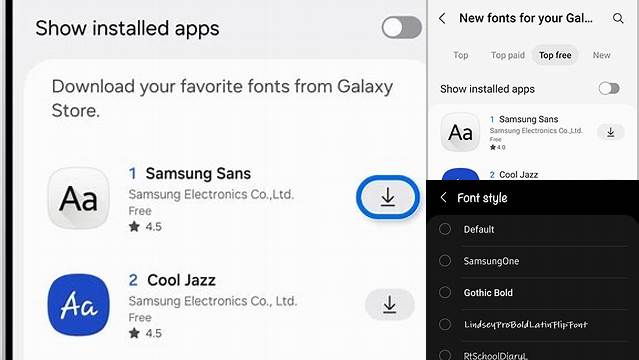
Cool Fonts For Samsung: Customize Your Phone!
Hey guys! Want to give your Samsung phone a fresh new look? One of the easiest ways to do that is by changing the font! There are tons of cool fonts out there that can really make your phone stand out. Let’s dive into everything you need to know about fonts for your Samsung phone.
1. Understanding Font Options on Samsung Phones
So, you're probably wondering what font options you have right out of the box. Samsung phones come with a few pre-installed fonts, usually including classics like Roboto and SamsungOne. These are great starting points, but let’s be honest, they can get a little boring after a while. The good news is that Samsung makes it pretty easy to change your font, whether you want to use something from the Galaxy Store or even upload your own custom font files. Playing around with these options can really personalize your phone and make it feel more like you.
Changing the font on your Samsung phone isn’t just about aesthetics; it's about making your phone more comfortable to use. A clearer, more legible font can reduce eye strain, especially if you spend a lot of time reading on your phone. Plus, the right font can reflect your personality and style. Imagine choosing a playful, quirky font if you're a creative type, or a sleek, professional font if you prefer a more minimalist look. The possibilities are endless! And the best part? It's super easy to switch things up whenever you feel like a change. Experimenting with different fonts can keep your phone feeling fresh and new, without having to buy a whole new device. This simple customization can make a big difference in your daily experience, turning your phone into a true reflection of your individual taste.
The beauty of Samsung's font settings is the level of control it gives you. Not only can you change the basic font, but you can also tweak its size and weight to suit your preferences. This is particularly useful if you have visual impairments or simply prefer larger text for easier reading. Making the font bold can also improve readability, especially in bright sunlight. And if you're someone who likes to switch things up regularly, you'll appreciate how quickly and easily you can change your font. The whole process takes just a few seconds, so you can experiment with different looks without any hassle. Plus, with the Galaxy Store offering a wide range of fonts, you're sure to find something that matches your style. Whether you're after something classic, modern, or totally unique, there's a font out there for everyone. Customizing your font is a small change that can make a big difference in how you experience your phone.
4. Free vs. Paid Fonts: What’s the Difference?
Okay, so you’ll notice there are both free and paid fonts in the Galaxy Store. Free fonts are great for trying out different styles without spending any money. However, paid fonts often have better designs, more polished looks, and wider character support. It really depends on your budget and how picky you are about your fonts. Consider this, guys: free fonts are like getting a sample at a store. They're good for testing the waters and seeing what you like. But if you really want something high-quality and unique, you might need to invest in a paid font.
The difference between free and paid fonts often comes down to the level of detail and craftsmanship. Paid fonts are typically created by professional designers who put a lot of time and effort into perfecting every aspect of the font. This can result in a more polished and refined look, with smoother curves, more consistent letter spacing, and better overall readability. Paid fonts also often come with a wider range of characters and symbols, making them suitable for different languages and applications. In addition, paid fonts are more likely to be regularly updated and supported by their creators, ensuring that they remain compatible with the latest software and devices. While free fonts can be a great option for casual users, those who are serious about typography and design may find that the extra investment in a paid font is well worth it. After all, your phone's font is one of the first things people notice, so choosing a high-quality font can make a big difference in how your device is perceived.
5. Using Custom Font Files on Samsung
For the real font aficionados out there, Samsung also lets you use custom font files. These usually come in the .ttf or .otf format. You’ll need to download these files from a trusted source and then copy them to your phone’s internal storage. After that, you can use a font installer app to apply them. This is a bit more advanced, but it gives you ultimate control over your font selection. Think of using custom font files as going off-menu at a restaurant. You're not limited to what's on the standard list; you can create your own unique combination.
Adjusting the font size on your Samsung phone is crucial for ensuring a comfortable and enjoyable reading experience. If the text is too small, you'll have to strain your eyes to read it, which can lead to fatigue and headaches. On the other hand, if the text is too large, it can make the screen feel cluttered and overwhelming. The ideal font size is one that allows you to read comfortably without having to squint or zoom in. You can easily adjust the font size in the